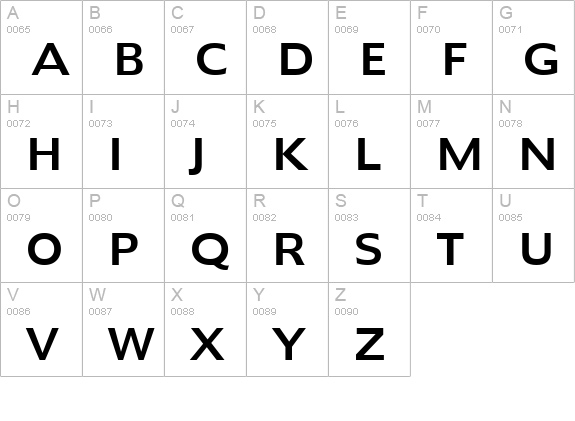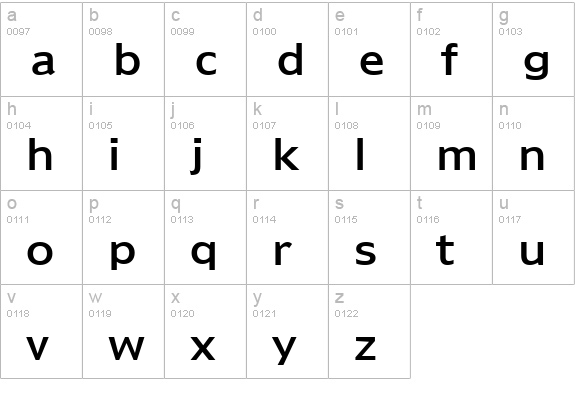
00254 Font Details
00254 font is a stunning typeface that combines elegance and modernity to create a sophisticated look for your design projects. With its clean lines and sleek curves, this font is perfect for a wide range of applications, from branding to editorial design. What sets 00254 font apart is not only its versatility but also the fact that it is available for free! That's right, you can download this beautiful font at FontsMarket.com without having to spend a dime. Whether you're working on a personal project or a client's design, 00254 font will elevate your work and give it a professional edge. Don't miss out on the opportunity to add this stylish and contemporary font to your collection. Download 00254 font today and unleash your creativity with this amazing typeface that is both visually appealing and freely accessible.